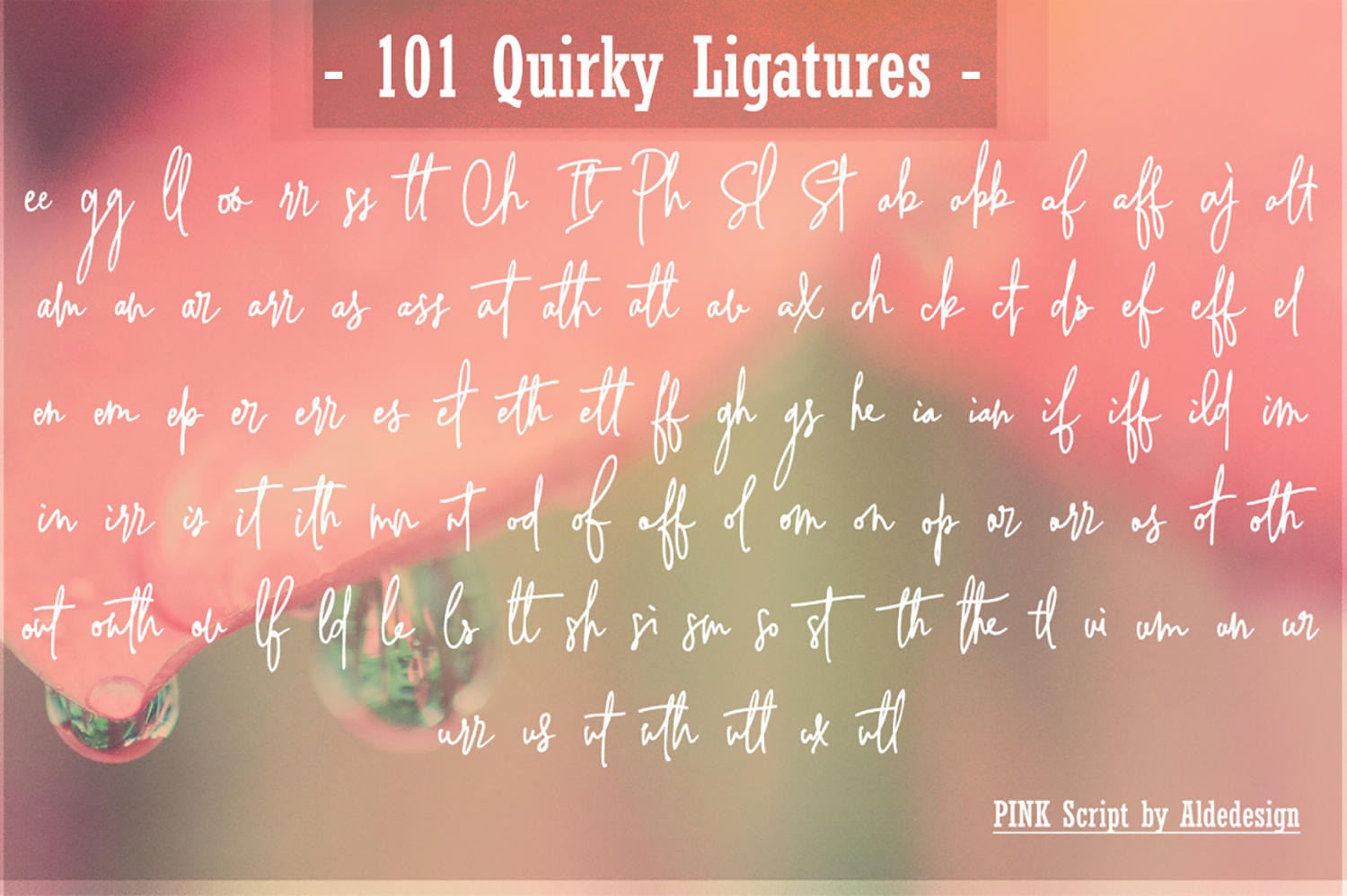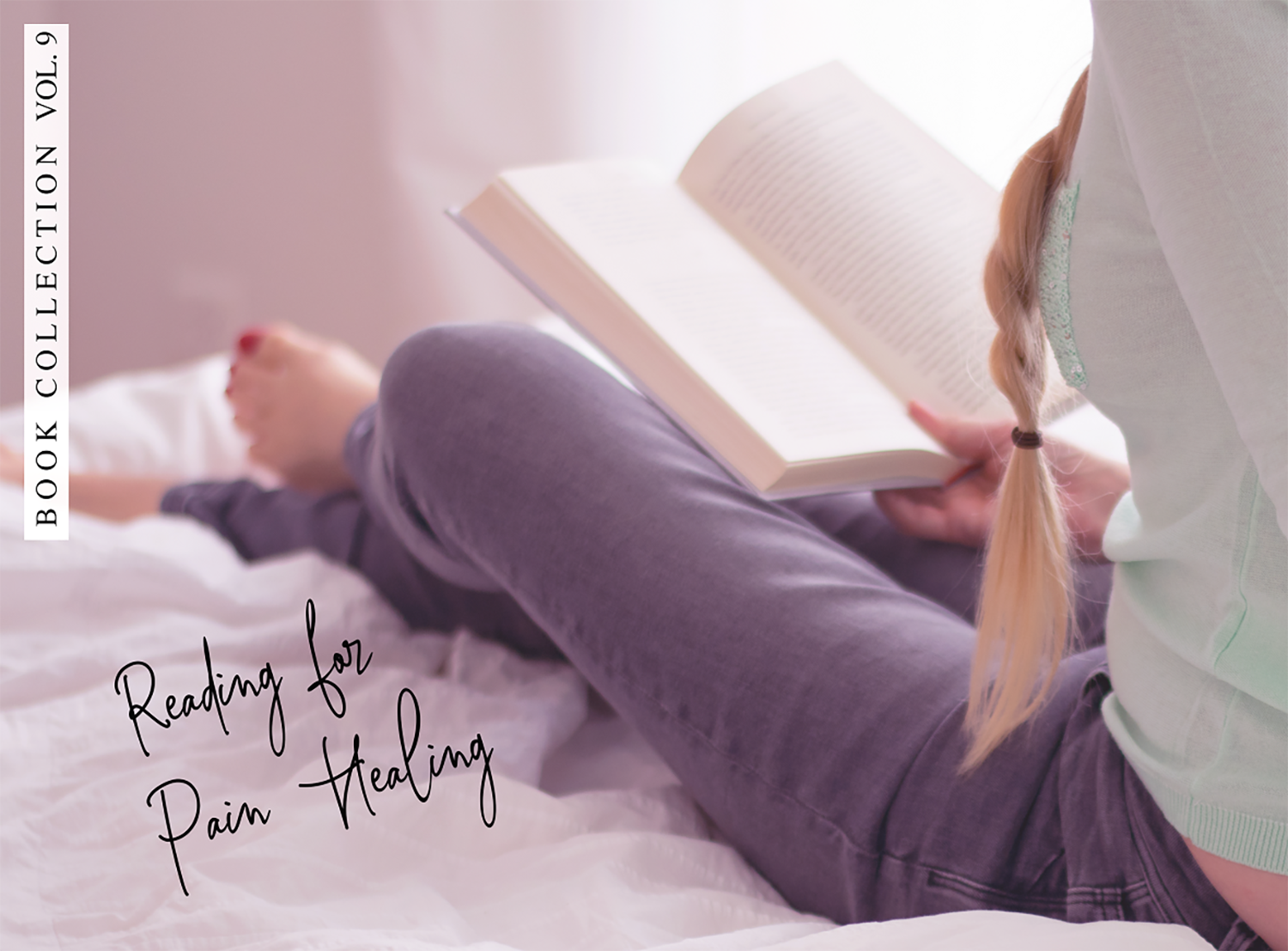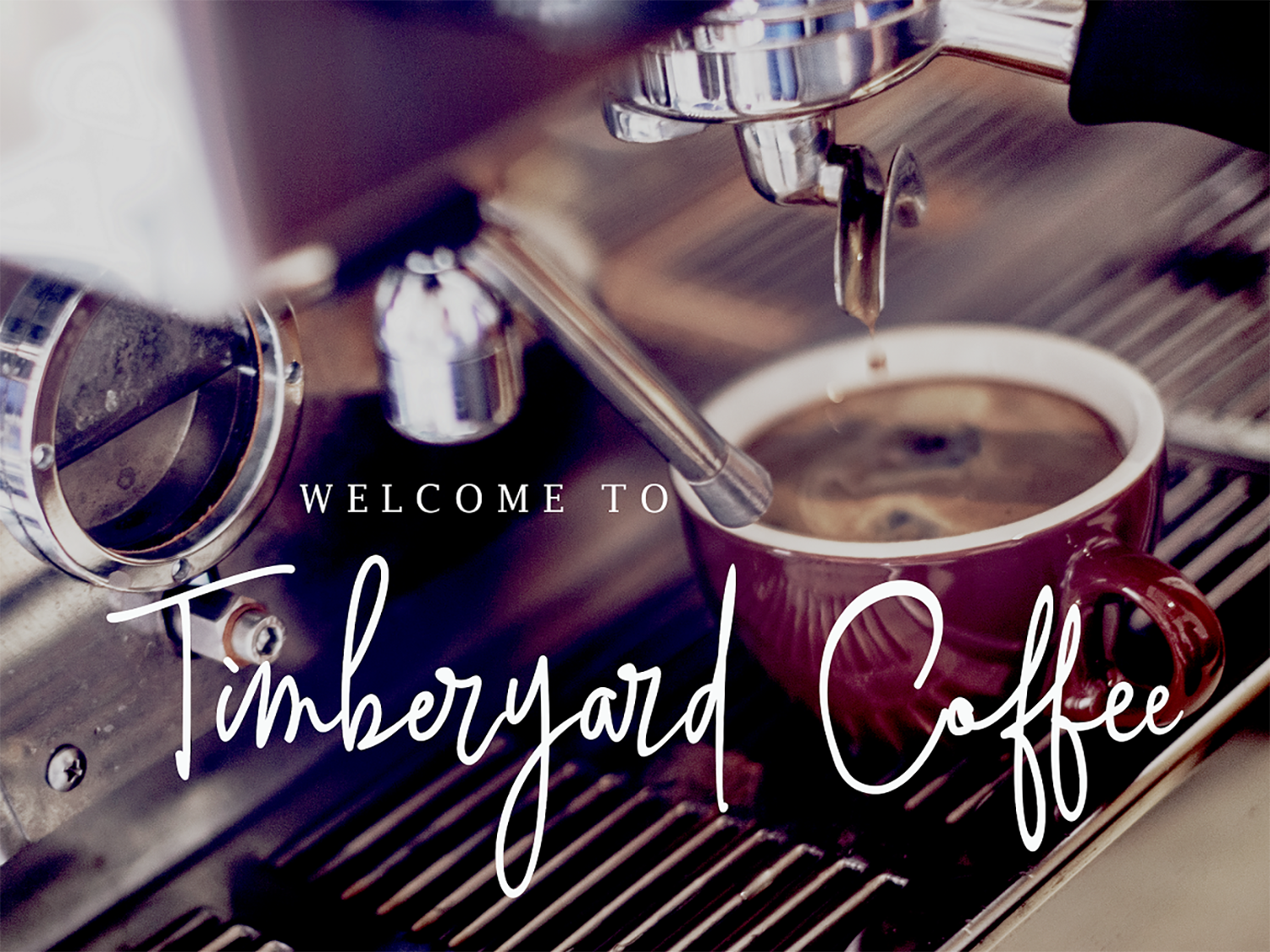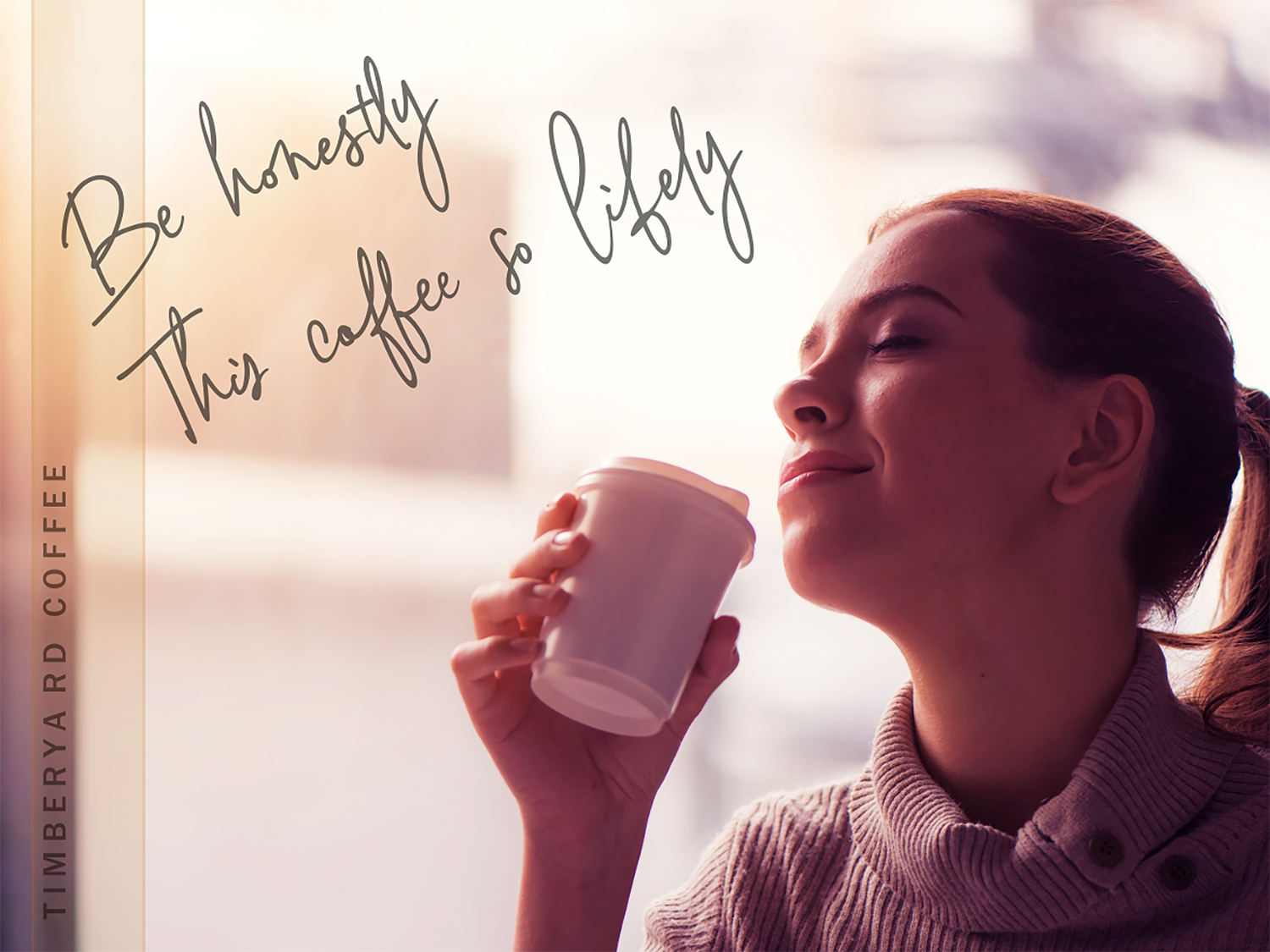
Pink Script Free Font
Pink Script Free Font is a fashionable and quirky new handwriting font script. Created to look as close to a natural handwritten script as possible by including over 100 ligatures, and a full set of lowercase alternates. This free typeface was designed by a talented Alde Saputro. If you like it don’t forget to check out the full version.